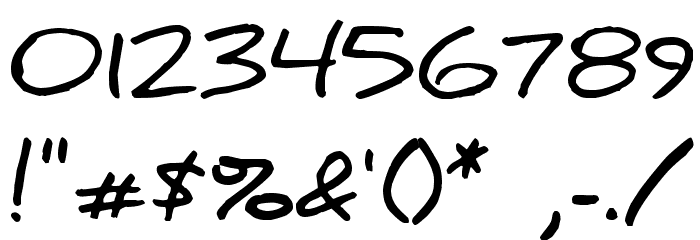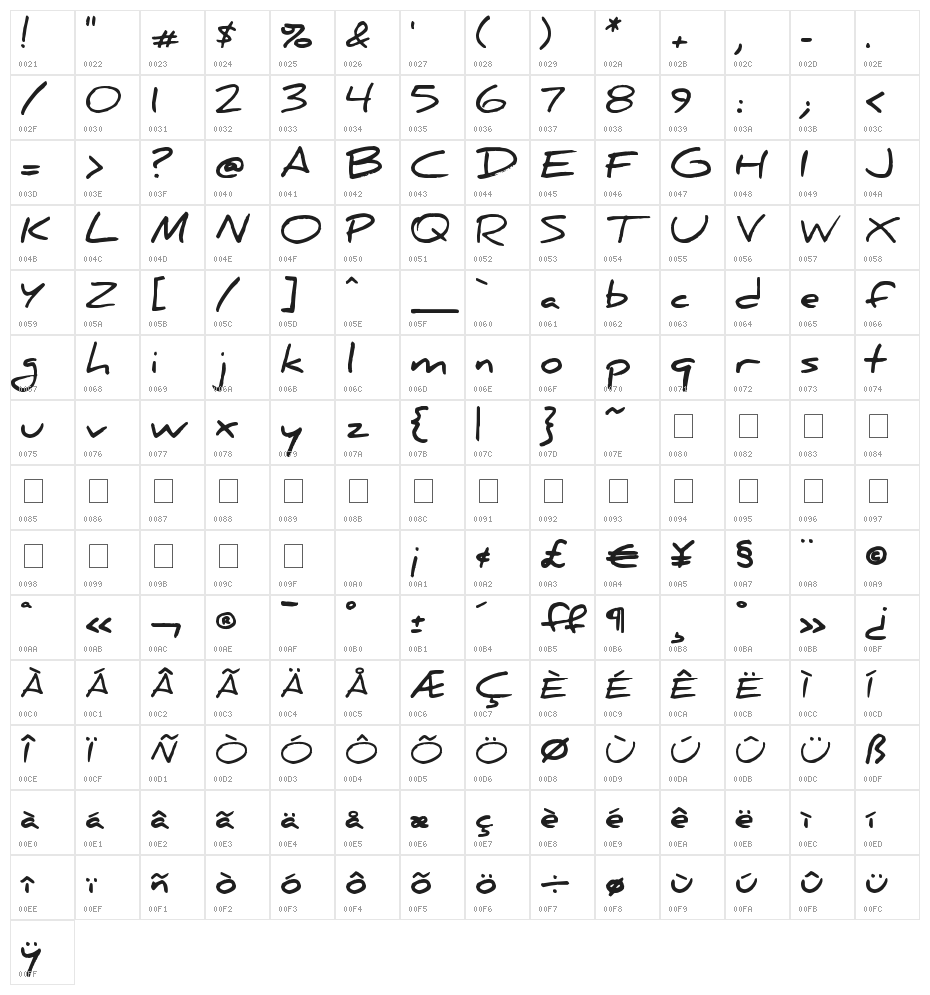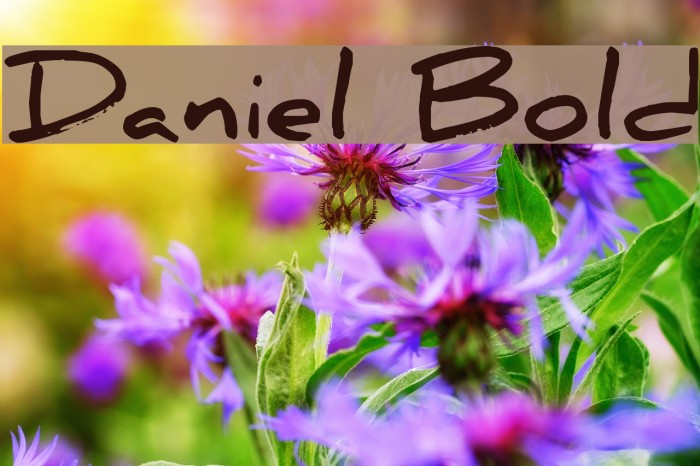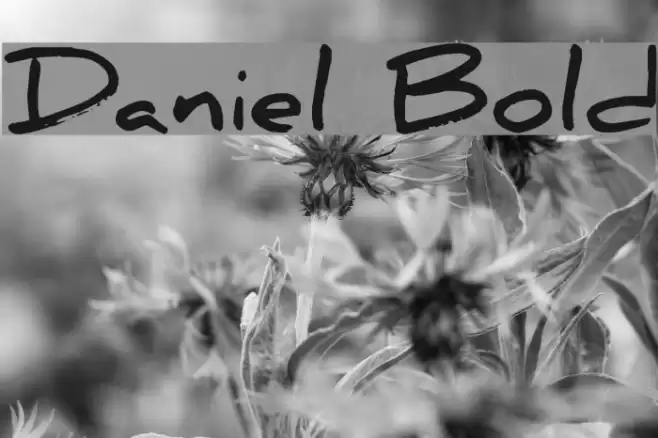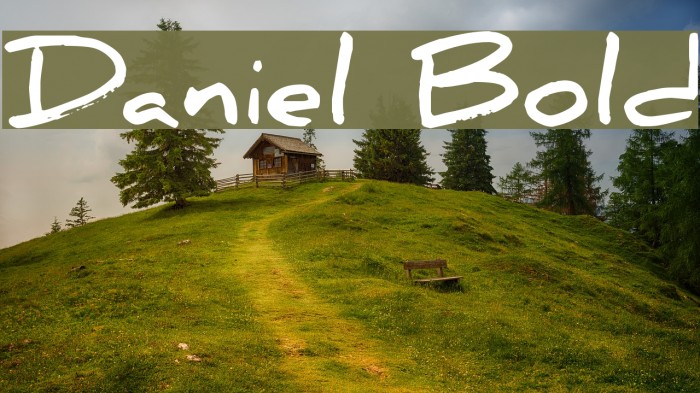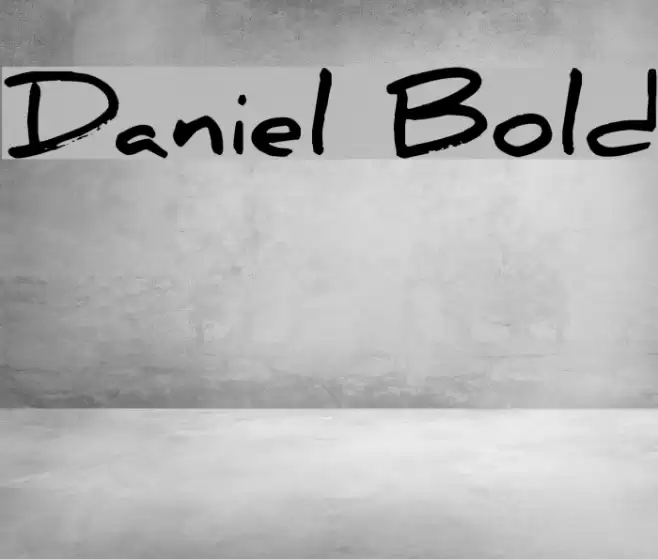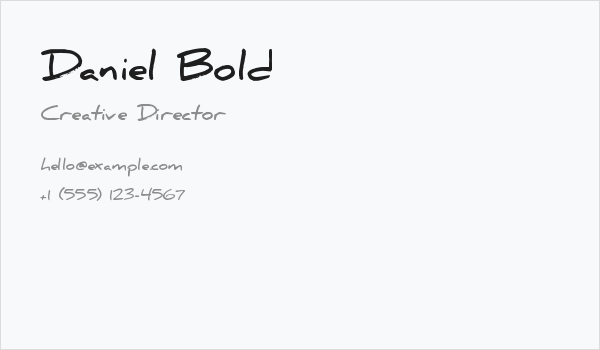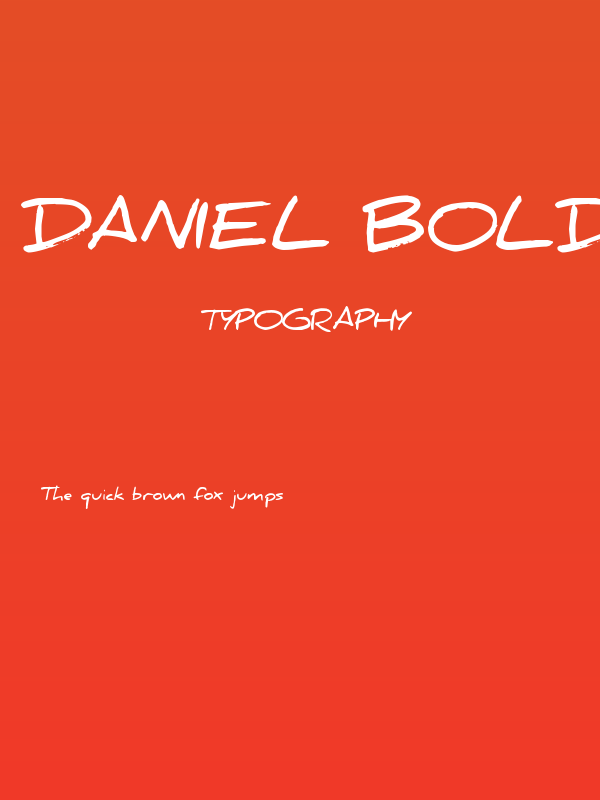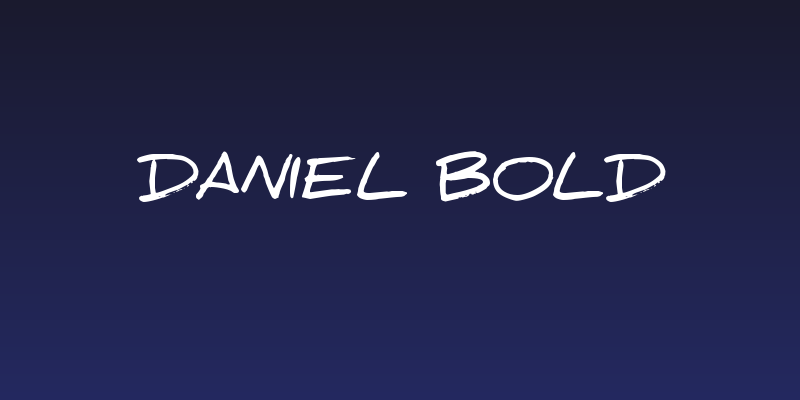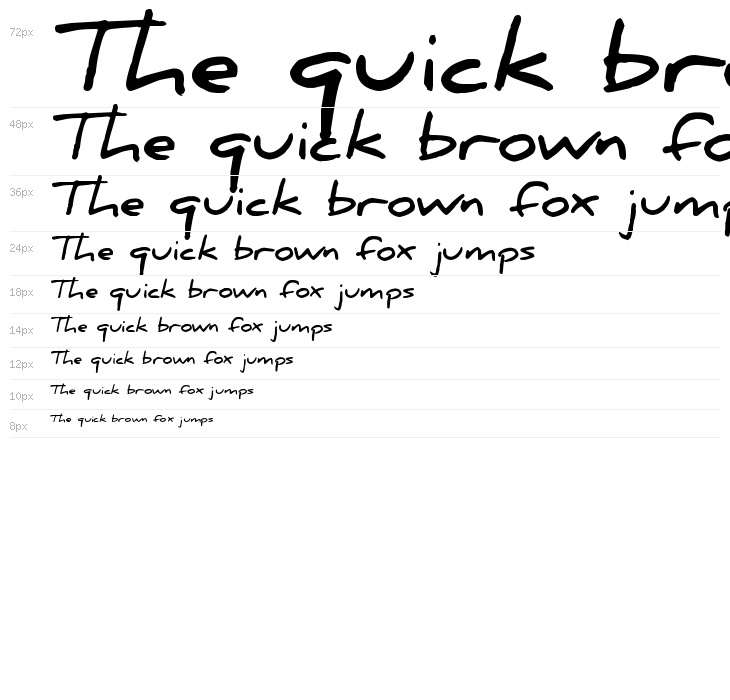
Daniel Bold Font
Daniel Bold Description
This font features a dynamic and expressive handwritten style, characterized by its fluid strokes and casual appearance. The letters are slightly slanted, giving a sense of movement and energy. The uppercase and lowercase letters maintain a consistent style, with rounded edges and varying stroke widths that add a personal touch. The numerals and special characters are designed to match the overall aesthetic, ensuring a cohesive look across all text. This font is perfect for projects that require a personal, informal, or artistic touch, such as invitations, greeting cards, or creative branding materials.
| Overall Style | Casual, Artistic |
| Proposed Projects | Ideal for invitations, greeting cards, creative branding, and artistic projects. |